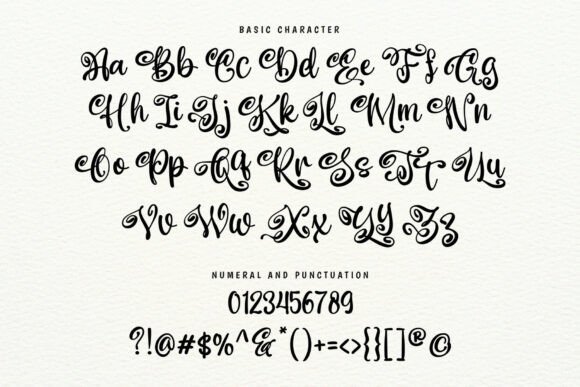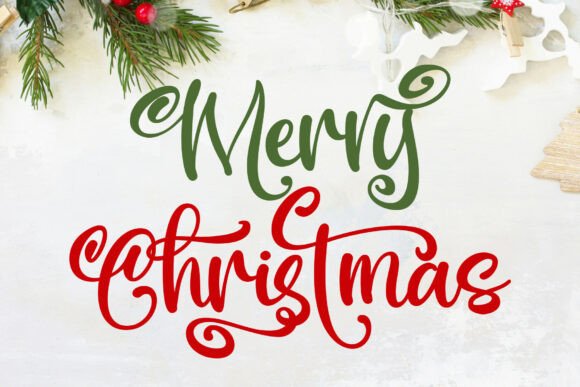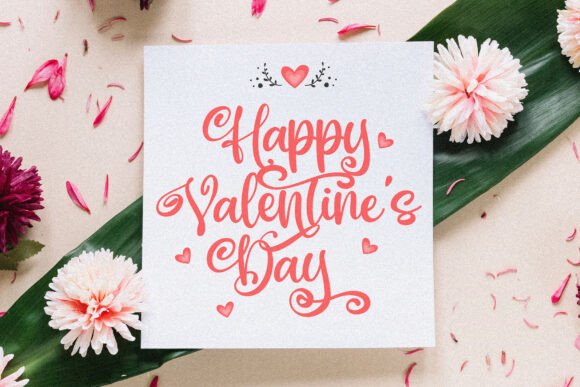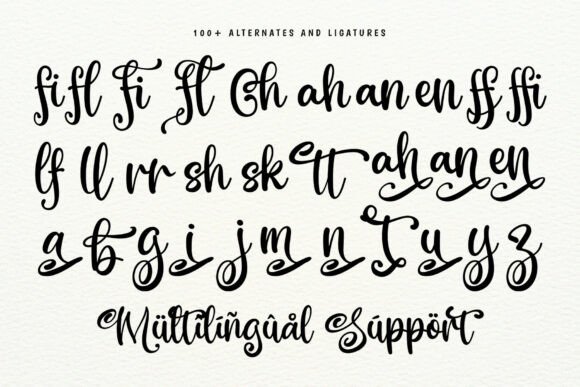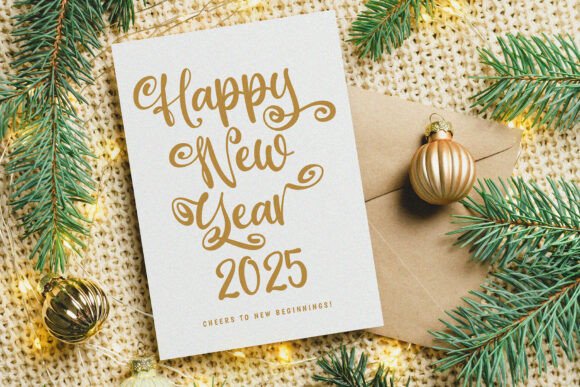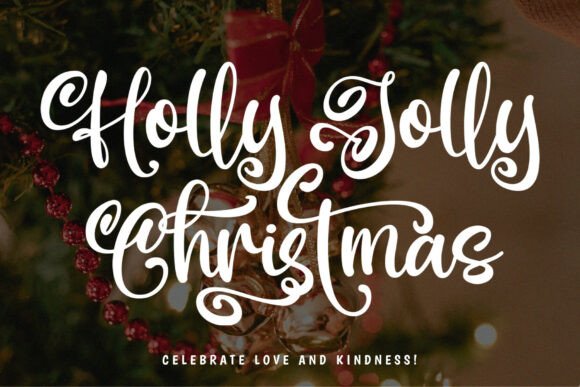
Introduction to Merry Christine Font Font
Fonts play a crucial role in design, and the Merry Christine Font font is a typeface that brings both character and versatility to any project. Whether you’re working on a branding project, a website, or a print design, the Merry Christine Font font offers a unique style that can elevate your work.
| 📌 Font Name | Merry Christine Font |
| 👤 Author | Inviline |
Merry Christine is a festive handwritten script font with playful swashes and bold strokes.
Perfect for holiday cards, Christmas invitations, seasonal packaging, and joyful branding that needs a cheerful and handcrafted touch .
Key Features of Merry Christine Font Font
Why Choose Merry Christine Font Font?
The Merry Christine Font font is more than just a typeface – it’s a design tool that helps you communicate your message with style and clarity. Its unique character set and versatile design make it suitable for a wide range of applications, from elegant invitations to bold headlines.
With its carefully crafted letterforms and balanced proportions, the Merry Christine Font font ensures readability and visual appeal across all mediums.
What makes Merry Christine Font font special?
The Merry Christine Font font stands out with its unique design, exceptional readability, and versatility across various design applications.